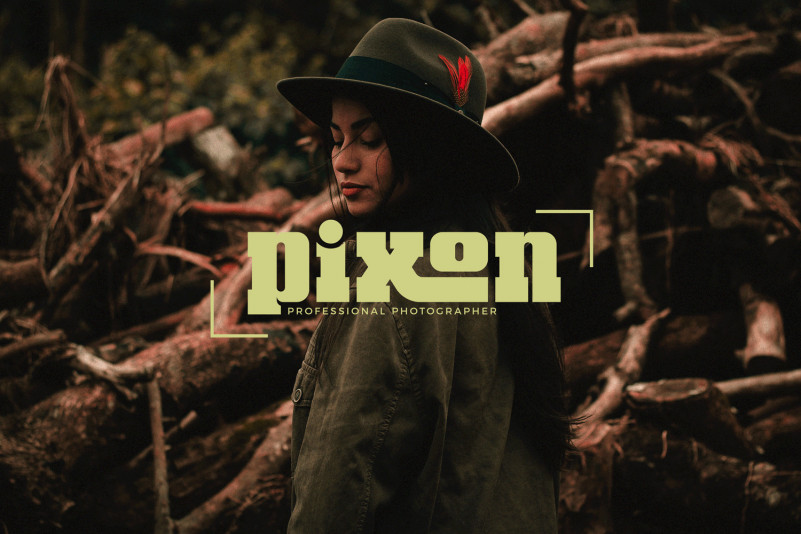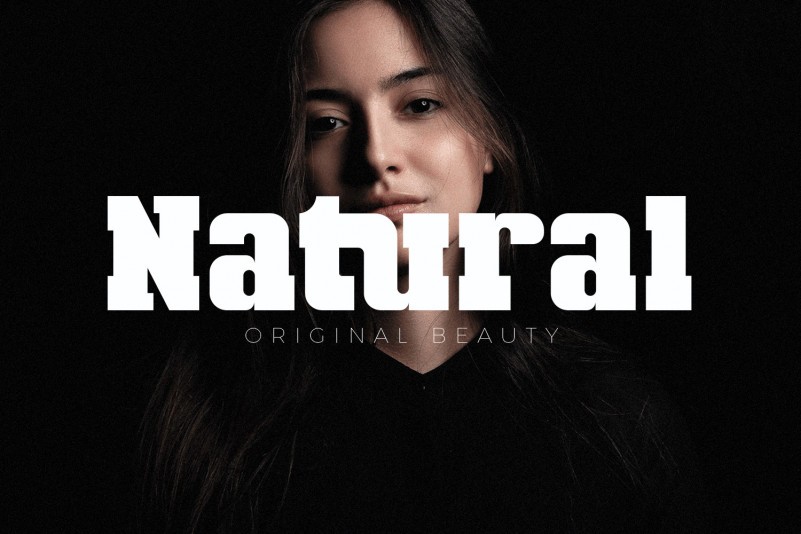
Amoba Slab Serif Font
Amoba Slab Serif Font is a very thick slab-serif font type. This font has supported supporting languages: Latin Western Europe and also comes with uppercase, lowercase, and ligature, So it gives design without limits